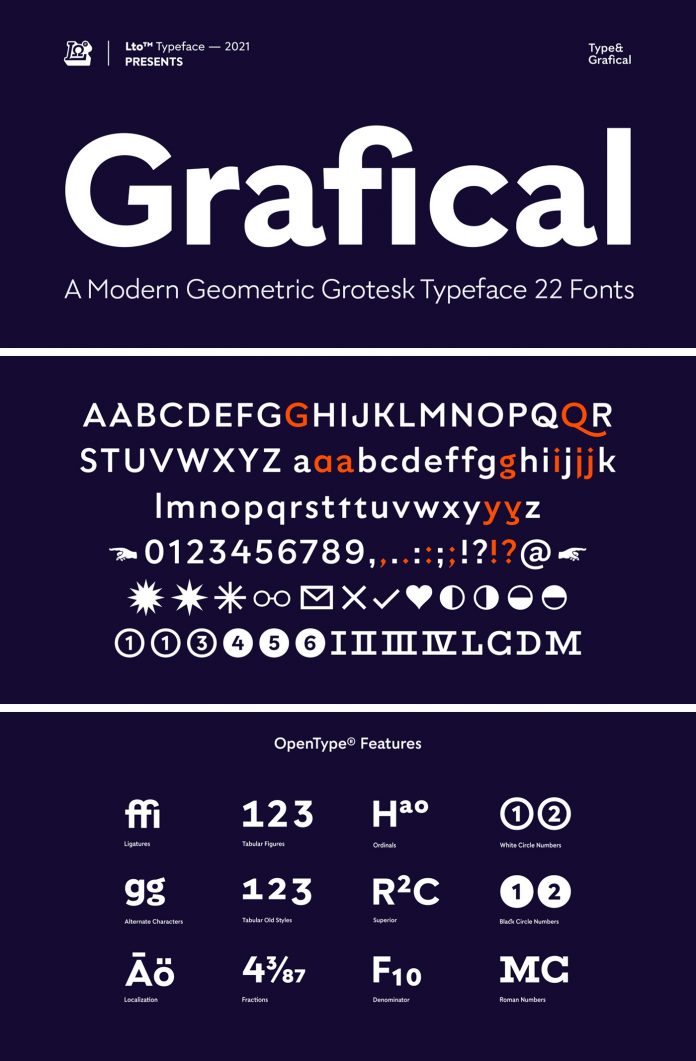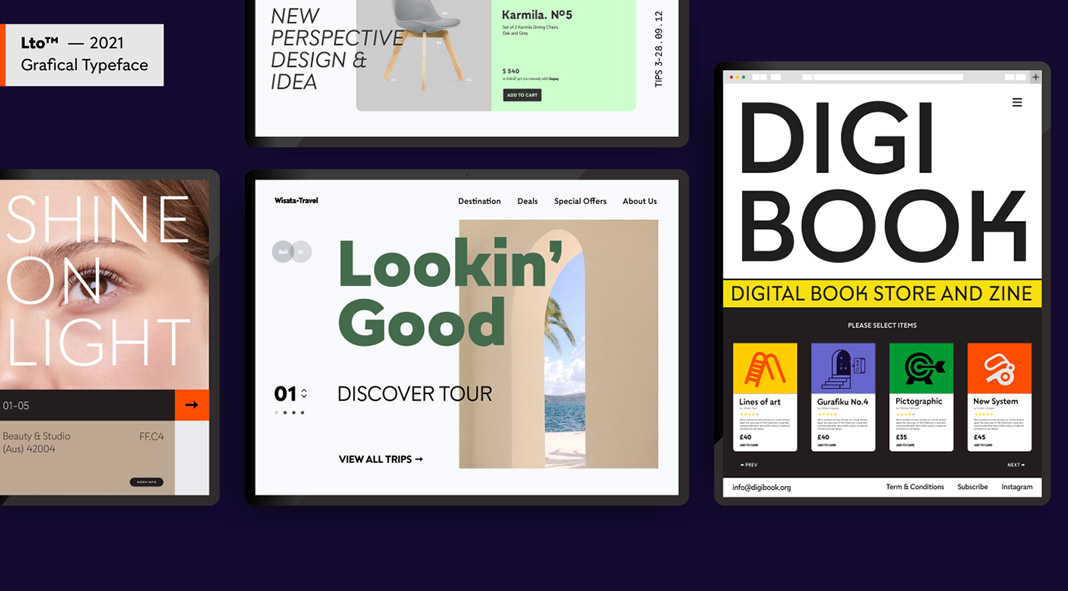
Grafical, a geometric grotesque font family that meets the needs of contemporary typography.
Designed in 2021 by Doni Sukma of the Letter Omega type foundry, Grafical is a geometrical grotesque font family that comes with plenty of OpenType features. It consists of 20 fonts including 8 uprights ranging from Extra Light to Black plus matching italics as well as two outline styles and two variable fonts.
This modern sans serif font family is based on simple geometric shapes that have been optically corrected for better legibility. The Grafical family is also equipped with plenty of alternate styles and numerous OpenType features. Its extensive character set supports multiple languages. Just click on one of the following links to get further information.